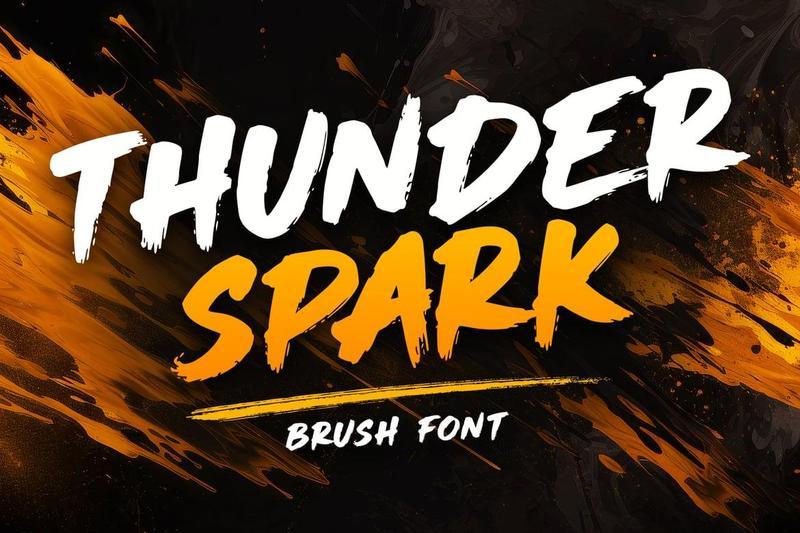
Thunder Spark Energetic Brush Font
Thunder Spark is a bold and dynamic brush font designed to deliver power, speed, and unstoppable energy to your creative projects. Inspired by lightning strikes, extreme sports, street culture, and adrenaline-filled action, this font creates a strong visual impact that instantly grabs attention.
Crafted with expressive brush strokes and natural hand-painted textures, Thunder Spark combines raw energy with modern style. Every letter features powerful movement and organic flow, giving your designs a bold, authentic, and energetic appearance. Its aggressive yet readable character makes it perfect for projects that demand strength and excitement.
This font is ideal for sports branding, esports graphics, gaming content, racing events, music promotions, and action-themed designs. The energetic brush style creates a sense of movement and intensity, helping your visuals stand out in competitive and fast-paced environments.
Thunder Spark works beautifully for logos, sports posters, gaming channels, streaming graphics, esports tournaments, YouTube thumbnails, social media graphics, product packaging, event promotions, and marketing campaigns. Its bold brush strokes add personality and confidence, making every design feel powerful and memorable.
The font is also perfect for creative DIY projects, SVG designs, digital content, branding materials, and promotional graphics. Whether used in digital media or large-format print applications, Thunder Spark delivers a high-impact visual presence that commands attention.
**Perfect For**
Sports Branding
Esports & Gaming Graphics
Racing & Motorsport Designs
YouTube Thumbnails
Event Posters & Banners
Social Media Content
Logos & Packaging Design
Marketing Campaigns
Create Powerful & High-Energy Designs
If you’re looking for a font that combines bold brush strokes, dynamic movement, and electrifying energy, Thunder Spark is the perfect choice. It helps you create designs that feel powerful, competitive, and impossible to ignore.